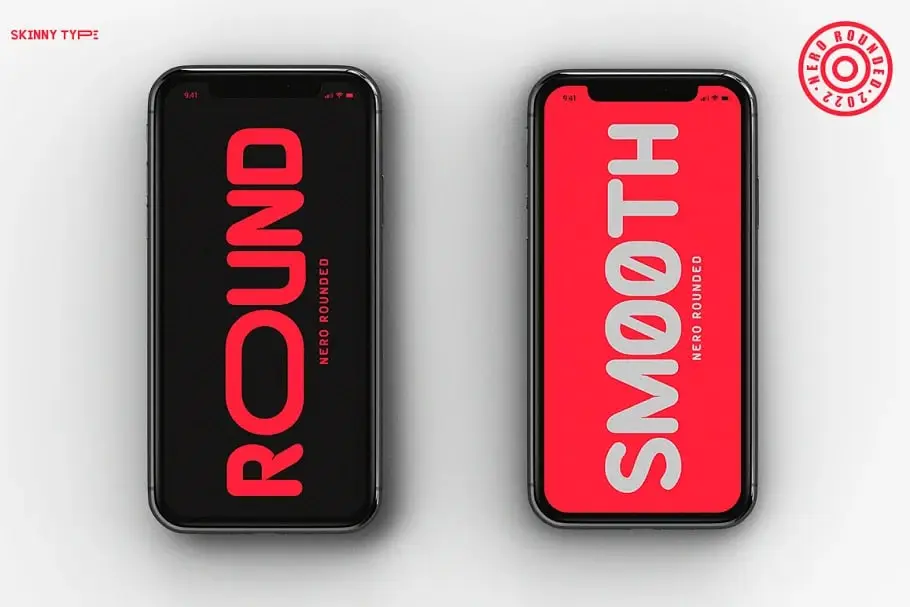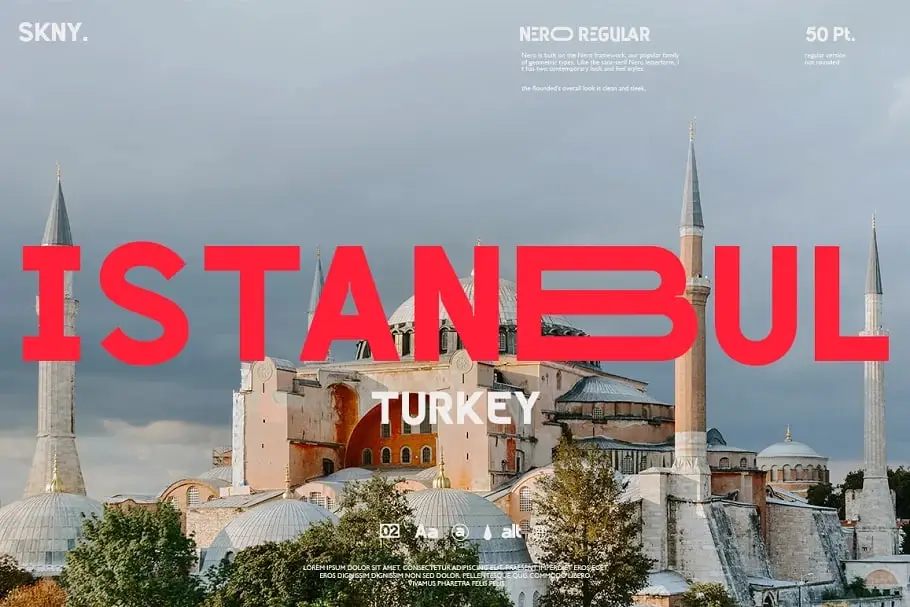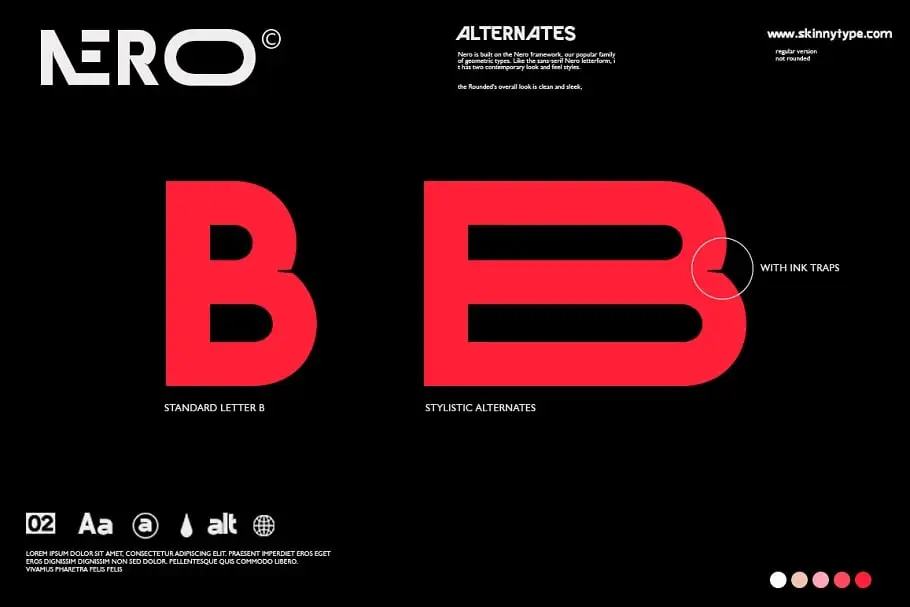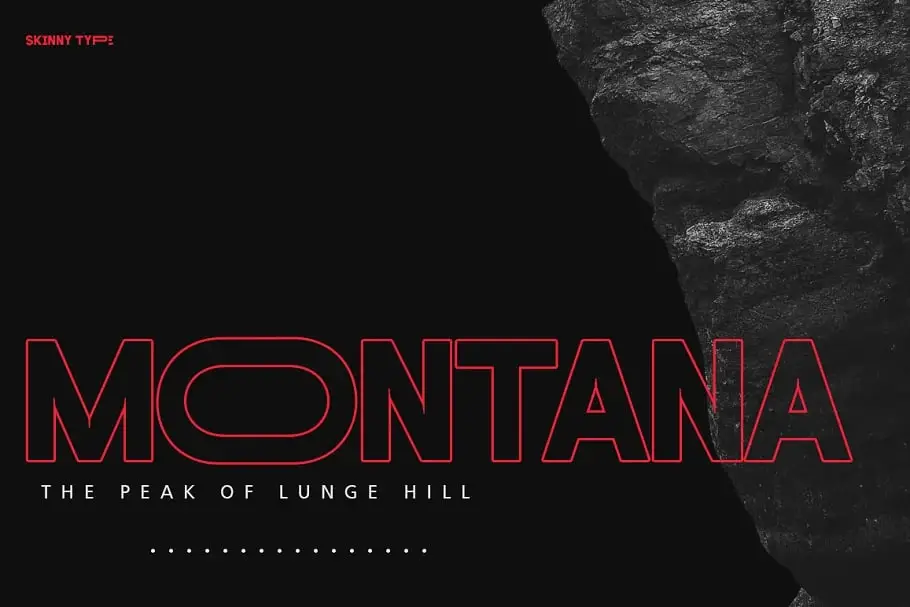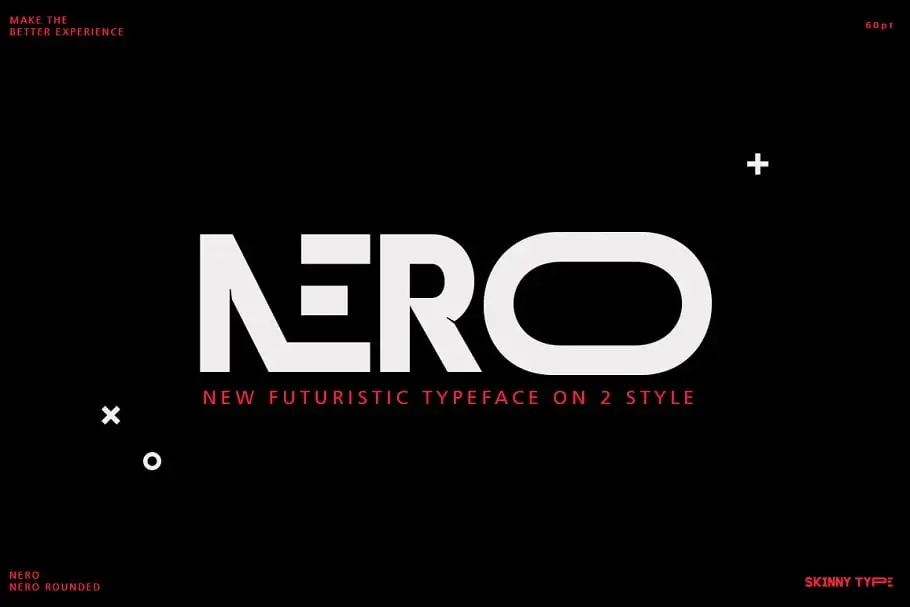
Nero Typeface — By Skinny Type
Nero Typeface is a modern and versatile font designed by Skinny Type, perfect for a variety of applications. With its clean lines and contemporary aesthetic, this typeface is ideal for branding, logos, web design, print materials, and user interfaces.
• Multiple weights for flexibility
• Stylish uppercase and lowercase letters
• Extensive character set for multilingual support
• Designed for both display and text usage
• Utilize the bold weight for impactful headlines.
• Pair with complementary fonts for a balanced design.